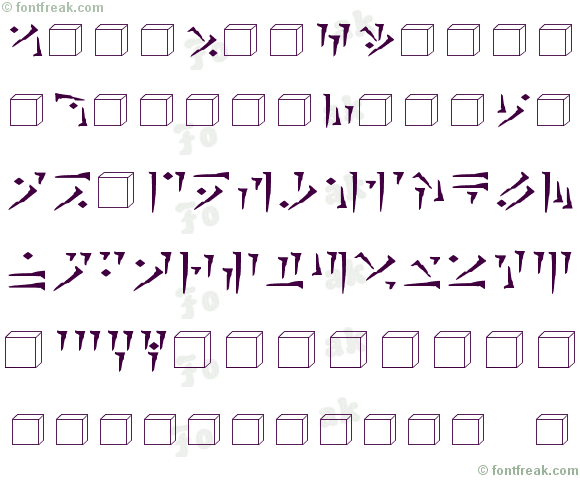
Dovakiin
About Dovakiin
Dovakiin by Neale Davidson is a striking display font that captures attention with its unique visual style. As a decorative typeface, it combines elements of both modern and fantasy aesthetics, making it perfect for a variety of creative projects. Characterized by its bold stroke weight and sharp angles, the Dovakiin font features a strong contrast that elevates its presence on any page. The spacing is thoughtfully designed to ensure clarity while maintaining a captivating look, making it easy to read even at larger sizes.
This font shines in specific use cases, particularly in video game graphics, fantasy book covers, and movie posters, where a sense of adventure and excitement is essential. Its distinctive style also makes it suitable for branding projects that aim to convey a bold, unique identity, such as small businesses in the gaming or entertainment sectors. Additionally, it can be an excellent choice for event promotions or themed gatherings, where an imaginative touch is desired.
What truly sets the Dovakiin font apart is its ability to evoke a sense of adventure and storytelling, making it an ideal choice for projects that seek to transport the viewer into another world. With its unique visual characteristics and broad applicability, the Dovakiin font free download is a valuable addition to any designer’s toolkit, ready to enhance a wide range of creative endeavors.